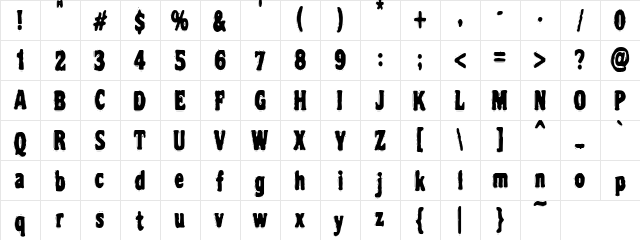
VTC NightOfTheDrippyDead Regular
| Designer | WolfBainX |
Design Context for VTC NightOfTheDrippyDead Typeface
VTC NightOfTheDrippyDead offers clean, dependable letterforms without strong stylistic allegiance, making it a practical choice for designers who need flexibility.